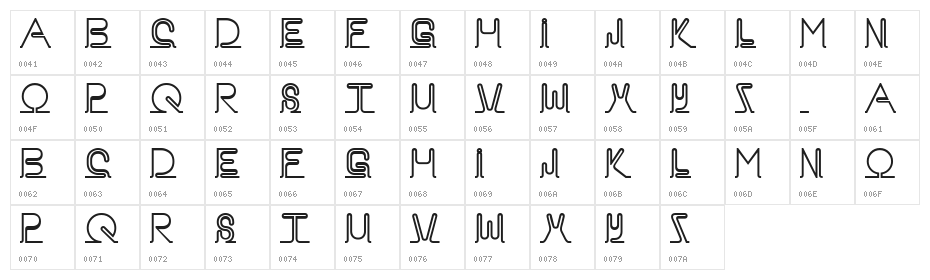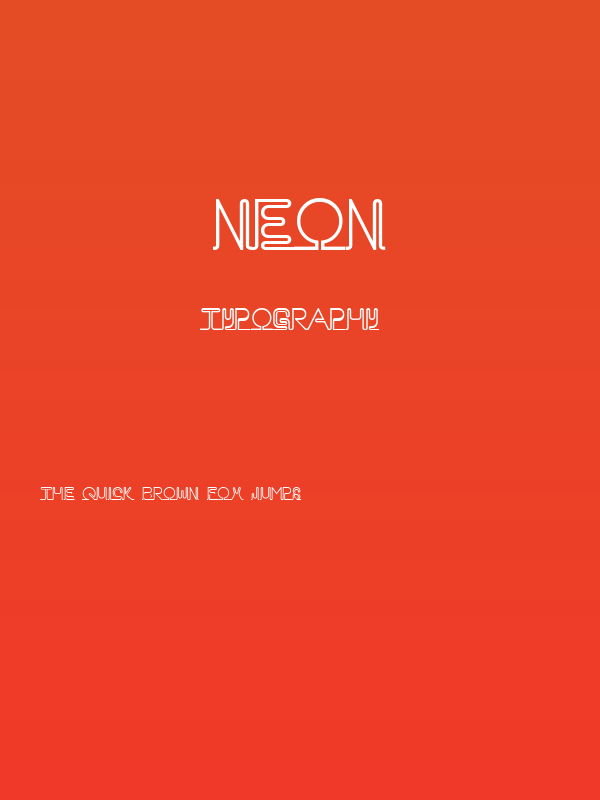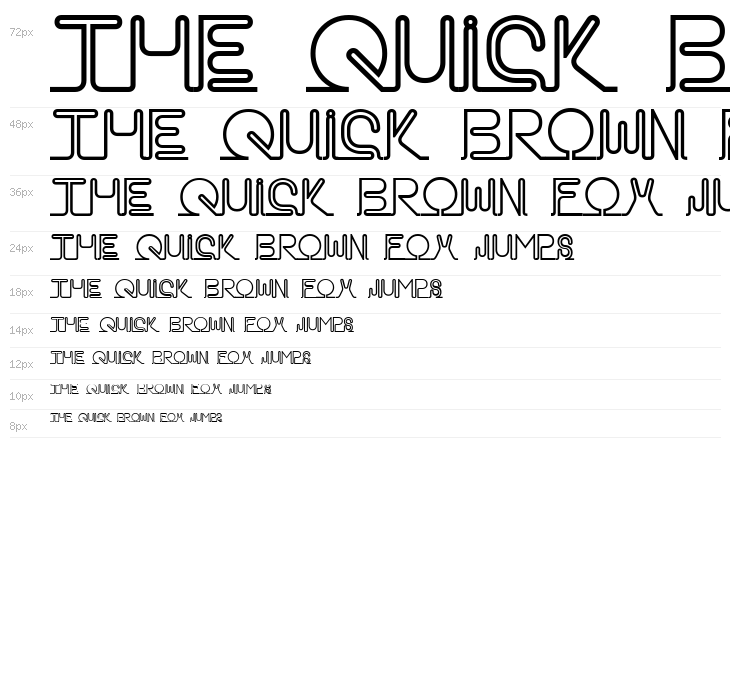
Neon Font
Neon Description
This font features a unique and modern design with a geometric and futuristic aesthetic. The characters are constructed with continuous, unbroken lines that create a sense of movement and fluidity. The uppercase letters are bold and striking, with a distinctive style that makes them stand out. The lowercase letters maintain the same design principles, offering a cohesive look across the entire alphabet. The numbers and special characters are designed to match the overall theme, ensuring consistency throughout. This font's design is reminiscent of neon lights, making it ideal for projects that require a contemporary and eye-catching appearance.
| Use Case | Headlines, Logos, Signage |
| Proposed Projects | Ideal for branding, signage, posters, and digital media projects that require a futuristic and eye-catching style. |